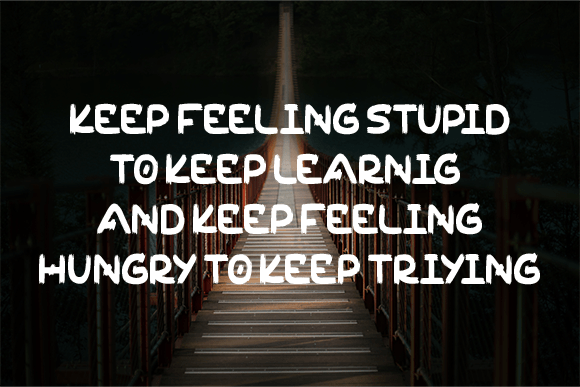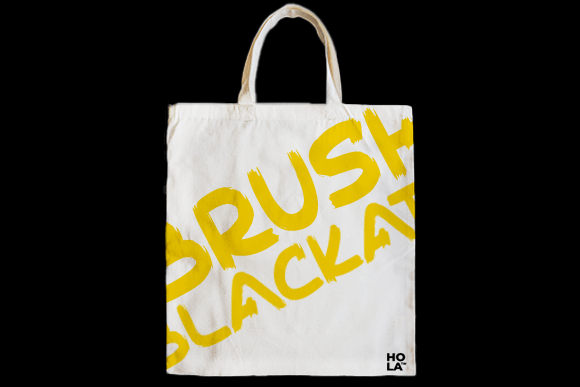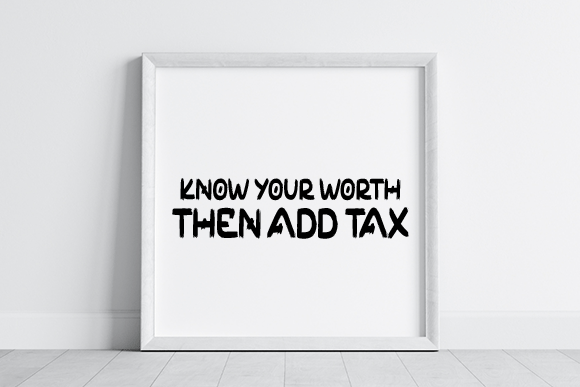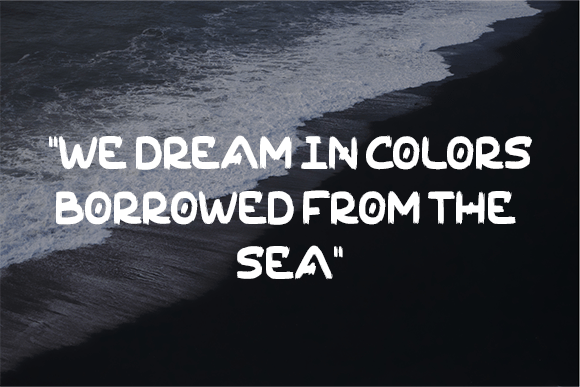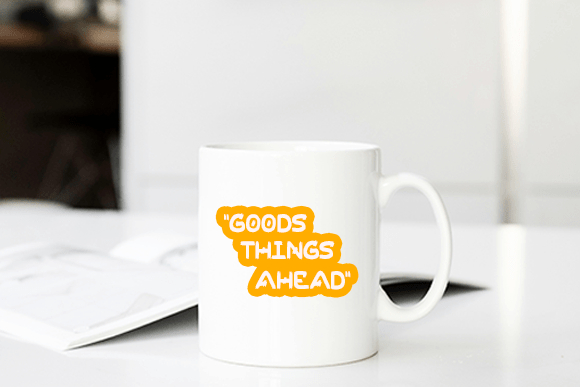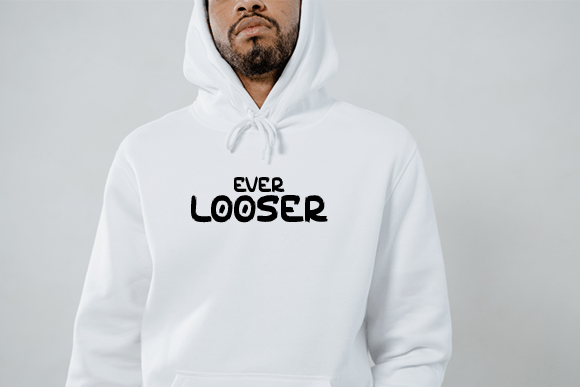
Introducing Brush Blackat: The Ultimate Natural Brush Font for Designers and Crafters
In the world of typography, fonts play a crucial role in conveying the tone and personality of a design. For designers and crafters looking to add a touch of uniqueness and sophistication to their work, Brush Blackat is the perfect choice. This natural brush font is flourishing with an invigorating all-caps style that is sure to make your designs stand out from the crowd.
The Charisma of Brush Blackat
Brush Blackat boasts an array of charismatic features that make it an ideal choice for a wide range of design applications. Its bold and expressive strokes are perfect for creating eye-catching logos, quotes, and titles that demand attention. The font’s natural, hand-brushed texture adds a level of authenticity and warmth to your designs, making them instantly more relatable and engaging.
Endless Design Possibilities with Brush Blackat
One of the most exciting aspects of Brush Blackat is its versatility. This impressive font can be used in a multitude of design contexts, from lively lettering and chic clothing designs to eye-catching posters and signage. Whether you’re looking to create a bold brand identity or simply want to add a touch of elegance to your craft projects, Brush Blackat is the perfect choice.
Logo Design with Brush Blackat
Logos are a crucial element of any brand identity, and Brush Blackat is an excellent choice for creating unique and memorable logos. The font’s bold, all-caps style ensures that your logo will stand out from the competition, while its natural texture adds a level of sophistication and professionalism.
Quote and Typography Design with Brush Blackat
Brush Blackat is also perfect for quote and typography design. The font’s expressive strokes and natural texture add a level of emotion and depth to your quotes, making them instantly more impactful and shareable. Whether you’re creating inspirational posters, social media graphics, or simply want to add a touch of elegance to your blog or website, Brush Blackat is the perfect choice.
Why Choose Brush Blackat?
So why choose Brush Blackat over other fonts? Here are just a few reasons why this natural brush font stands out from the crowd:
- Unique and Exclusive: Brush Blackat offers a level of uniqueness and exclusivity that’s hard to find in other fonts. Its natural texture and bold, all-caps style ensure that your designs will stand out from the competition.
- Versatile: Brush Blackat can be used in a wide range of design contexts, from logos and quotes to clothing designs and posters.
- Elegant and Refined: The font’s natural texture and expressive strokes add a level of elegance and refinement to your designs, making them instantly more sophisticated and professional.
Tips for Using Brush Blackat
To get the most out of Brush Blackat, here are a few tips to keep in mind:
- Experiment with Different Sizes: Brush Blackat looks great in a variety of sizes, from large and bold to small and subtle. Experiment with different sizes to find the perfect fit for your design.
- Play with Color: The font’s natural texture looks great in a range of colors, from bold and bright to muted and pastel. Experiment with different colors to find the perfect fit for your design.
- Combine with Other Fonts: Brush Blackat looks great on its own, but it can also be combined with other fonts to create a unique and interesting contrast. Experiment with different font combinations to find the perfect fit for your design.
| Font Name | Brush Blackat Font |
| Author | holatypework |
In conclusion, Brush Blackat is a natural brush font that offers a level of uniqueness and sophistication that’s hard to find in other fonts. Its bold, all-caps style and natural texture make it perfect for a wide range of design applications, from logos and quotes to clothing designs and posters. Whether you’re a designer or crafter looking to add a touch of elegance to your work, Brush Blackat is the perfect choice. With its versatility, elegance, and refined touch, Brush Blackat promises to deliver a note of uniqueness to your designs that will leave a lasting impression.